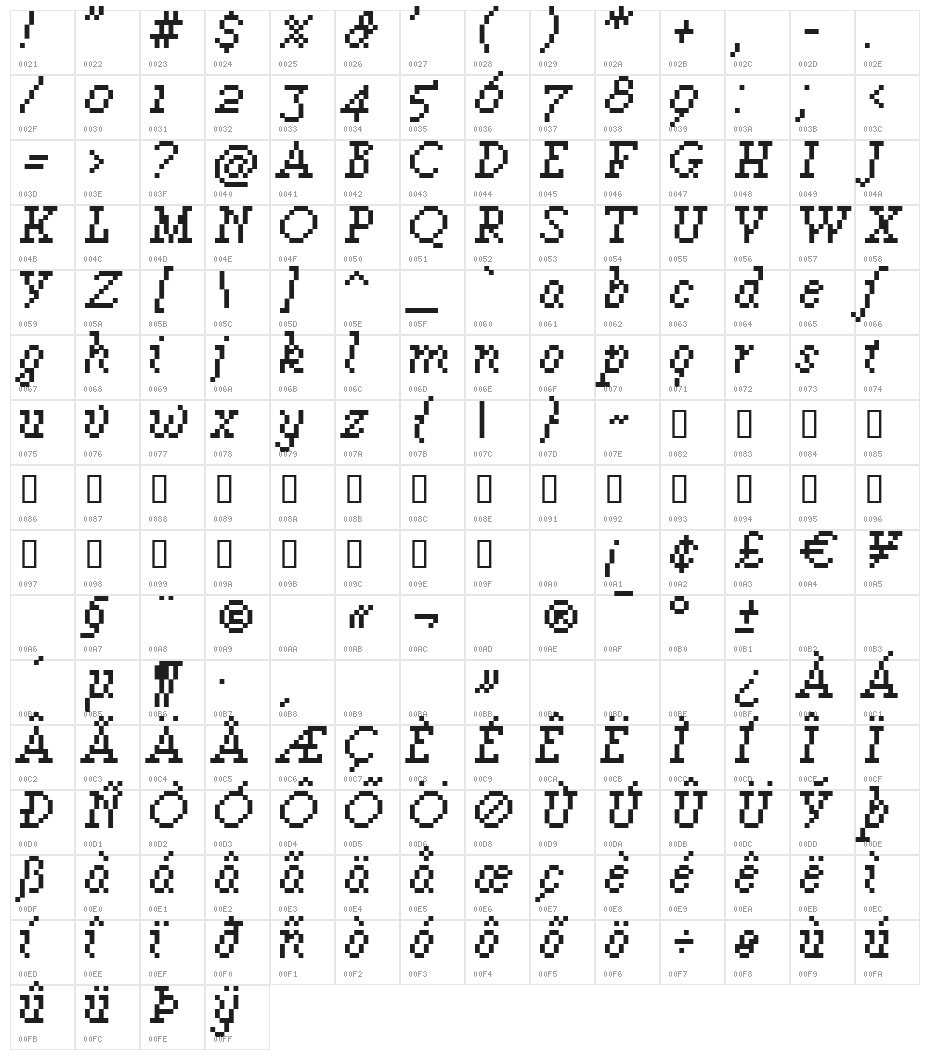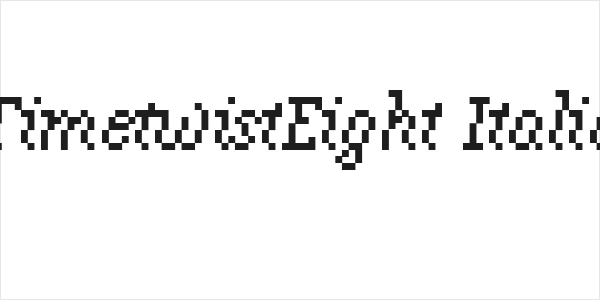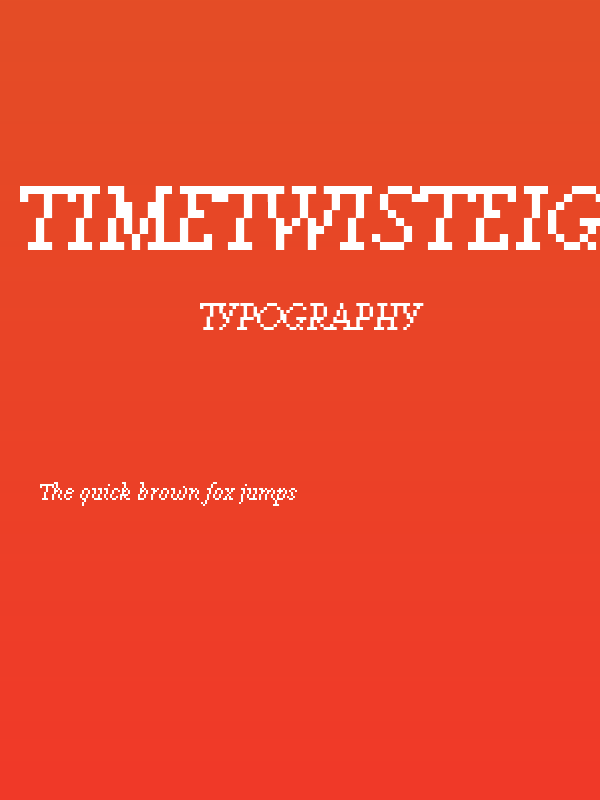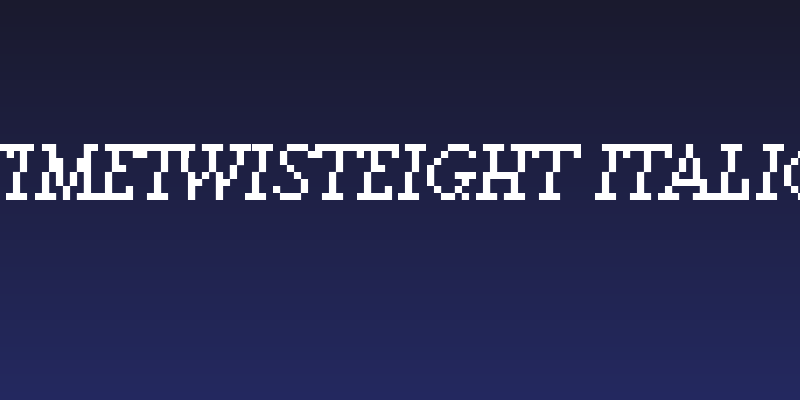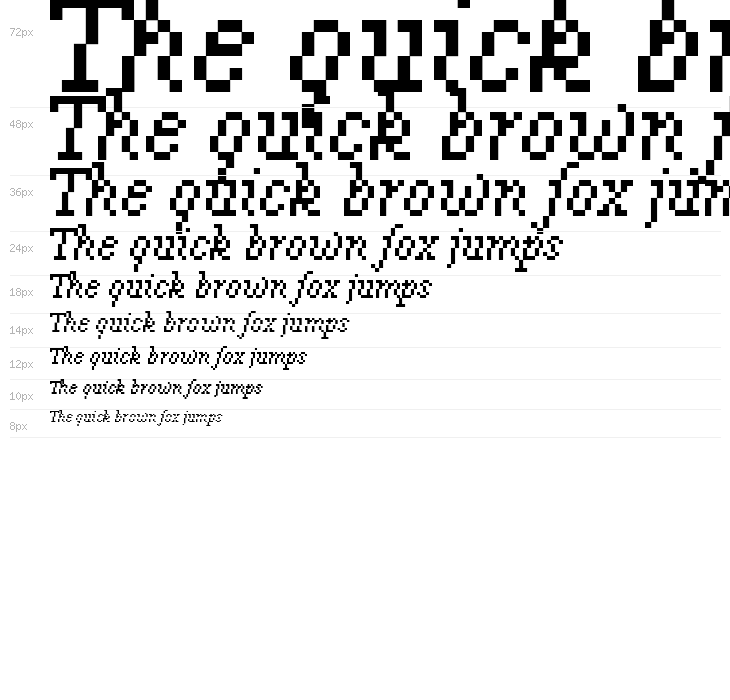
TimetwistEight Italic Font
TimetwistEight Italic Description
This font features a pixelated, retro aesthetic reminiscent of early digital displays and classic video games. The characters are constructed with a blocky, grid-like structure, giving it a distinct, nostalgic feel. The italic style adds a dynamic slant to the otherwise rigid forms, creating a sense of movement. Uppercase and lowercase letters maintain consistent proportions, while numbers and special characters are designed to complement the overall style. The font's unique appearance makes it ideal for projects that aim to evoke a sense of nostalgia or pay homage to vintage computing.
Proposed ProjectsIdeal for retro-themed designs, video game graphics, digital art projects, and nostalgic branding.